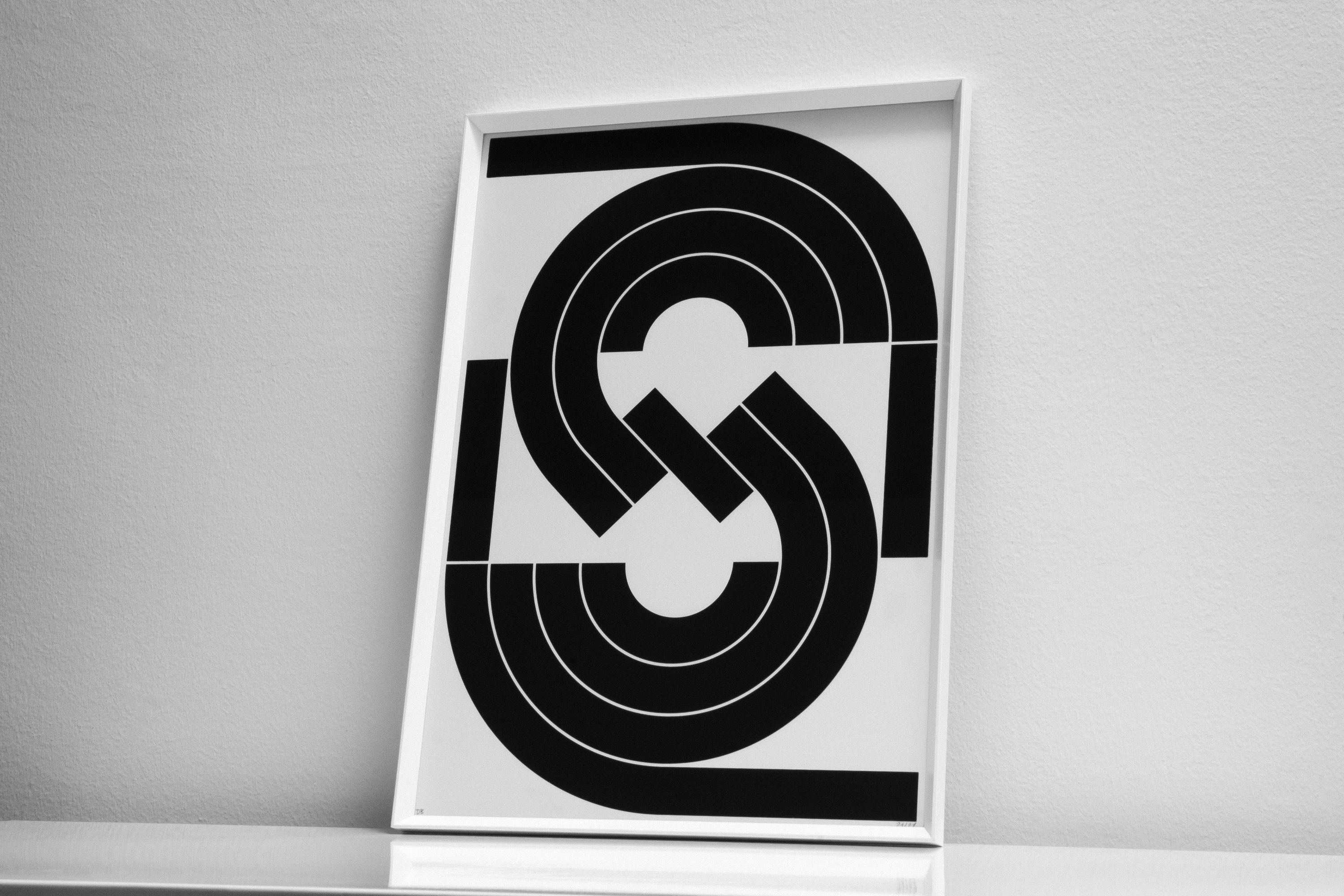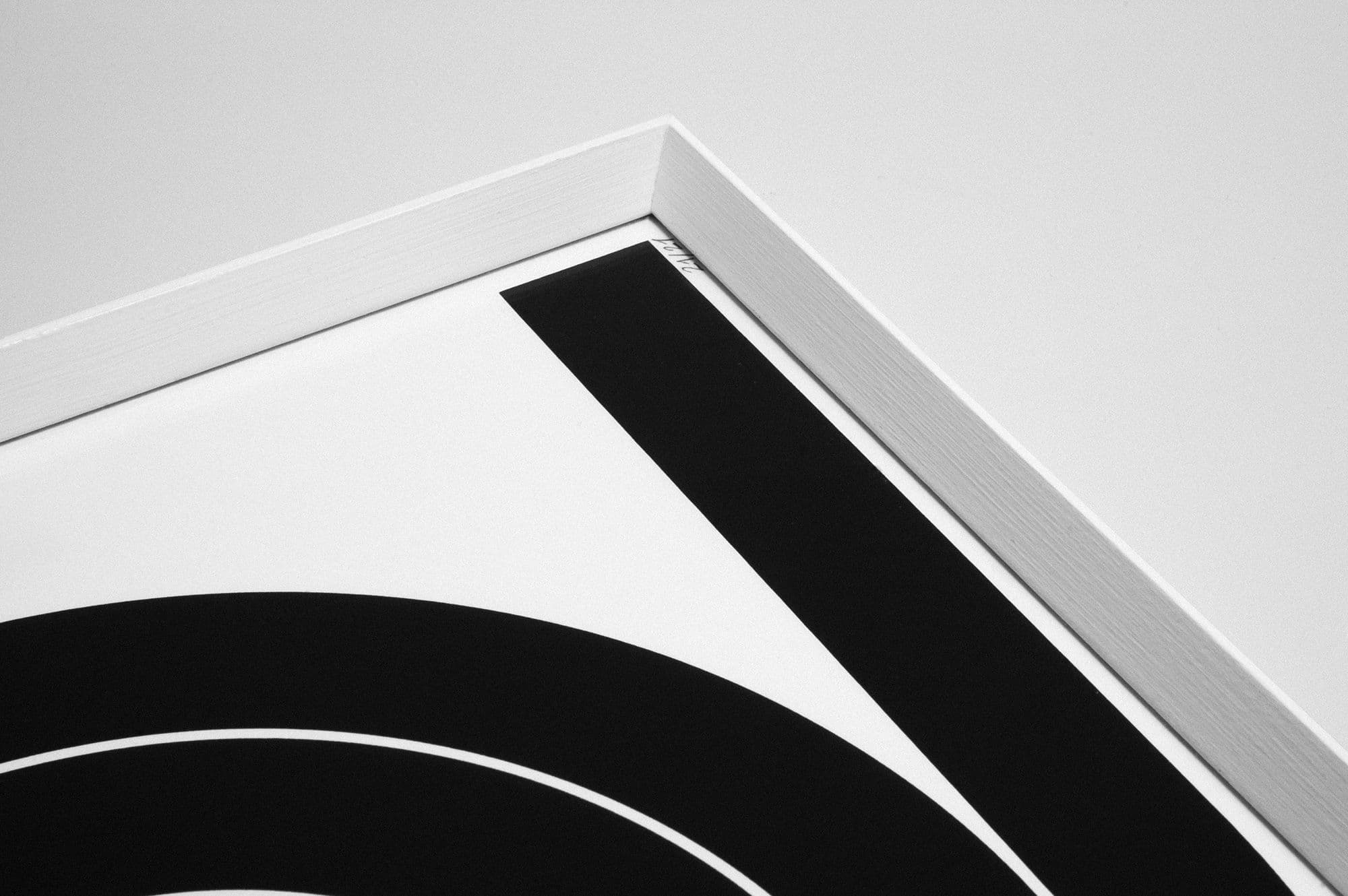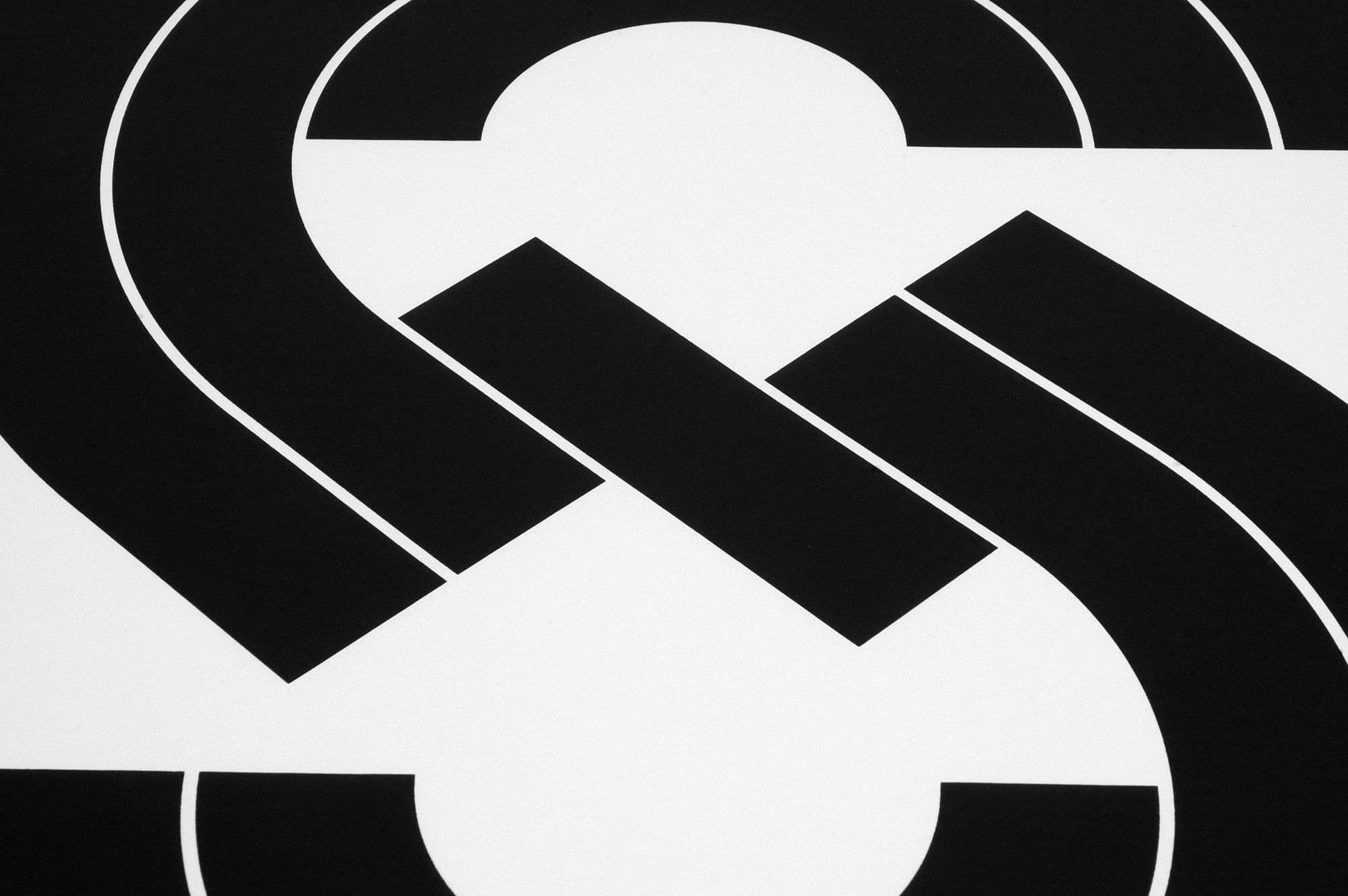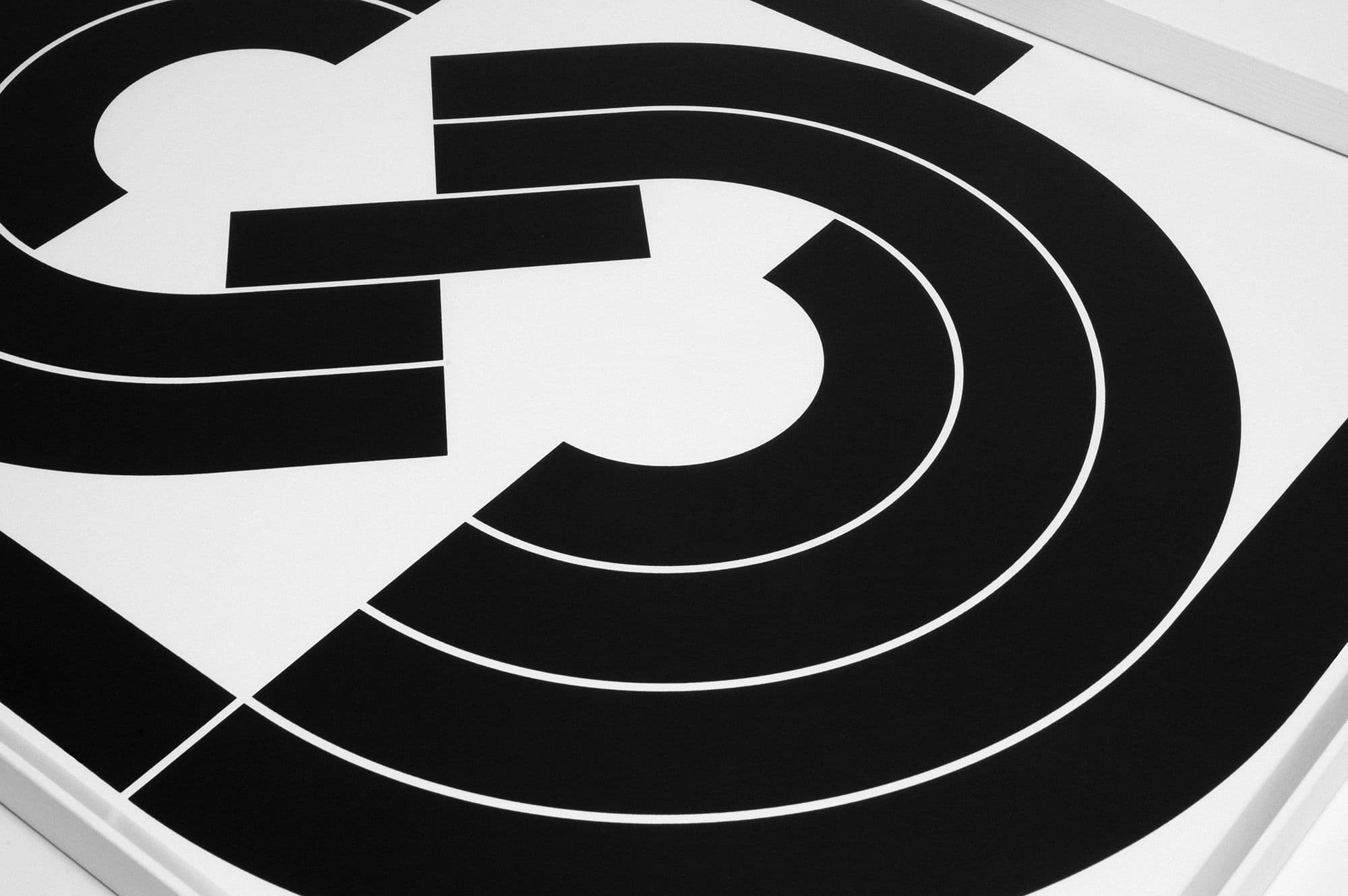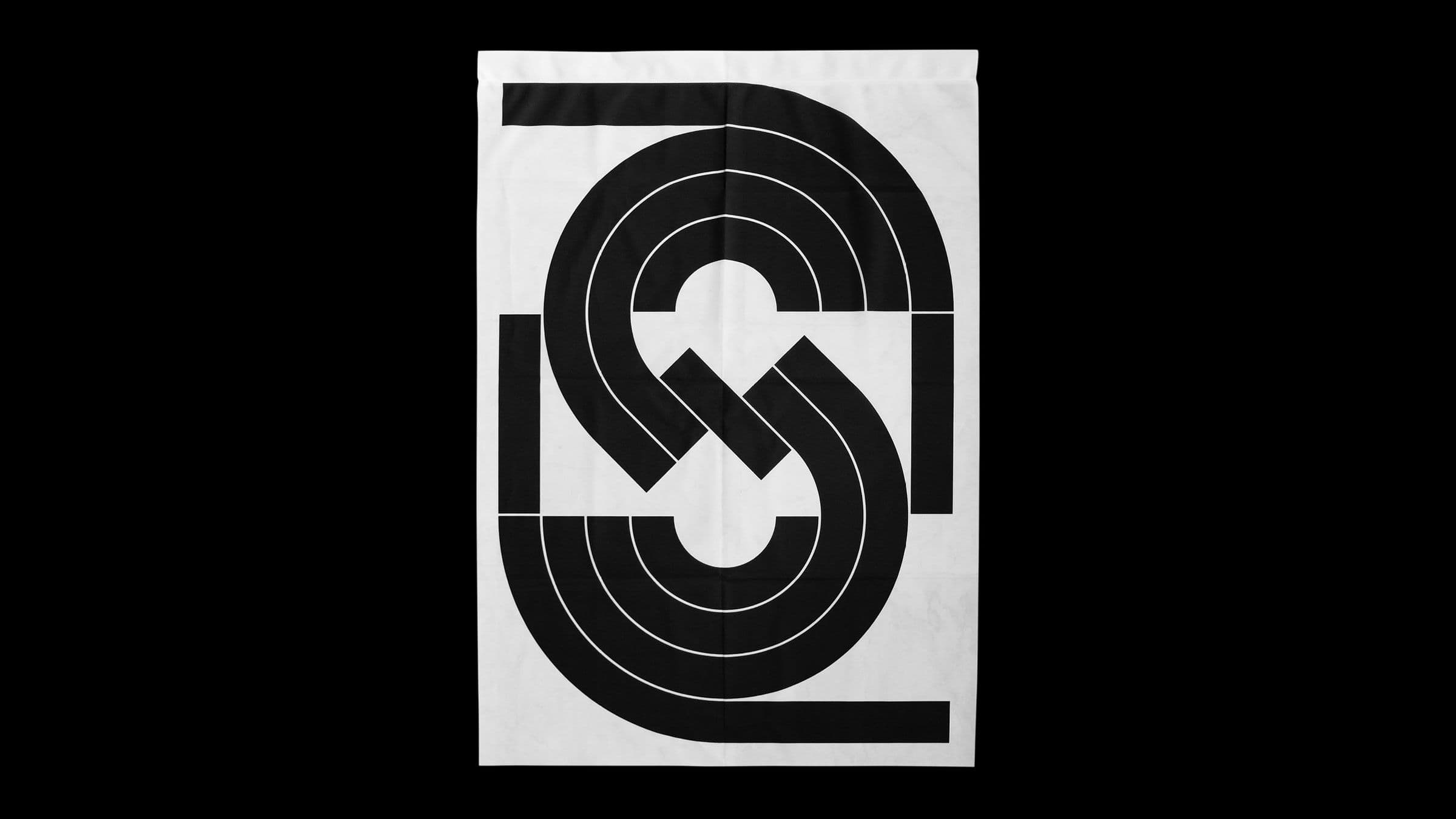
Poster for Archive Folder’s Null State project, focusing on non-places like airports, stations, supermarkets and highways. Piero Di Biase associated the idea with modernist and brutalist experiments in typography and urbanism. The monogram is reminiscent of the highways we travel without noticing and invites us to rethink them. archivefolder.xyz